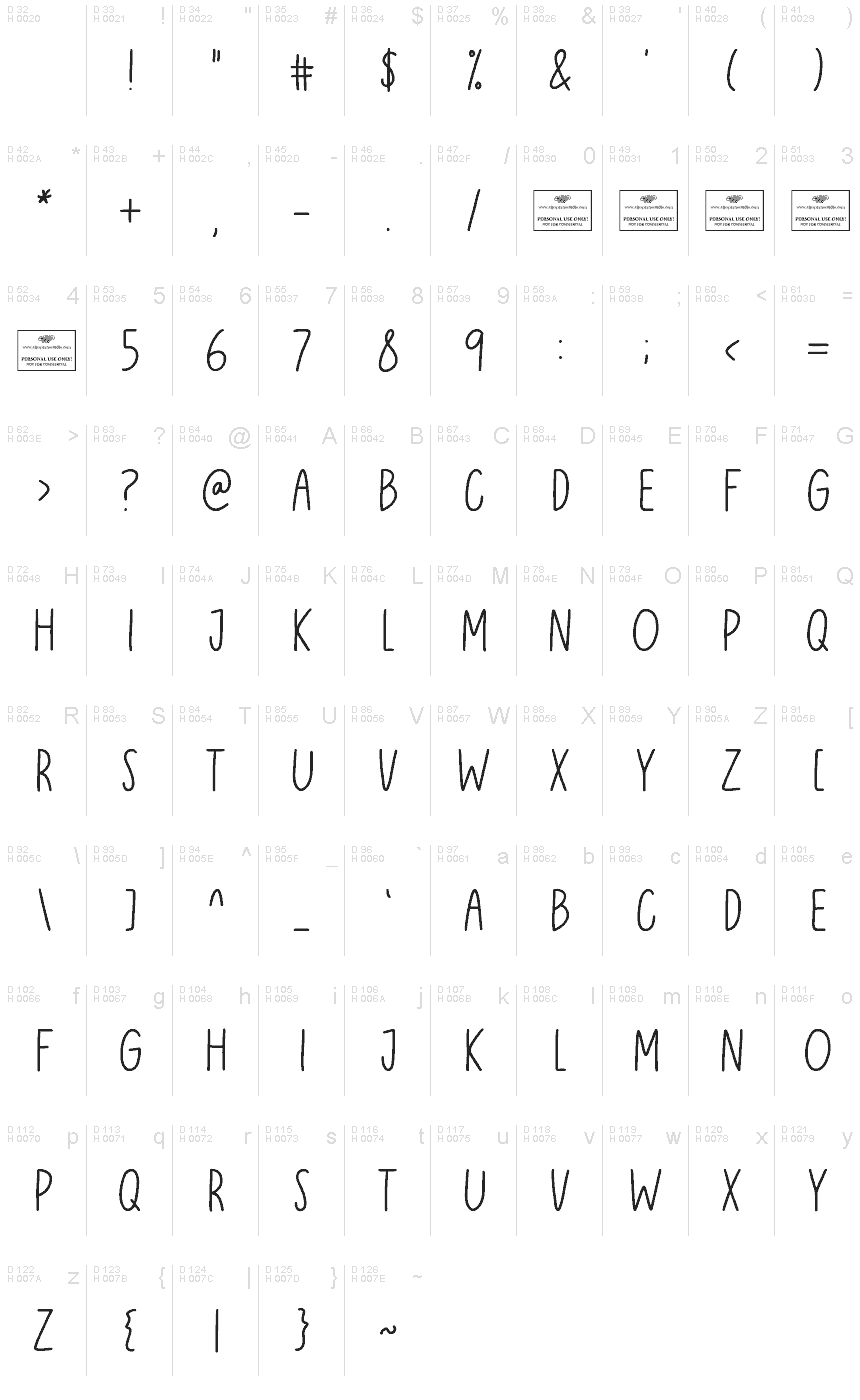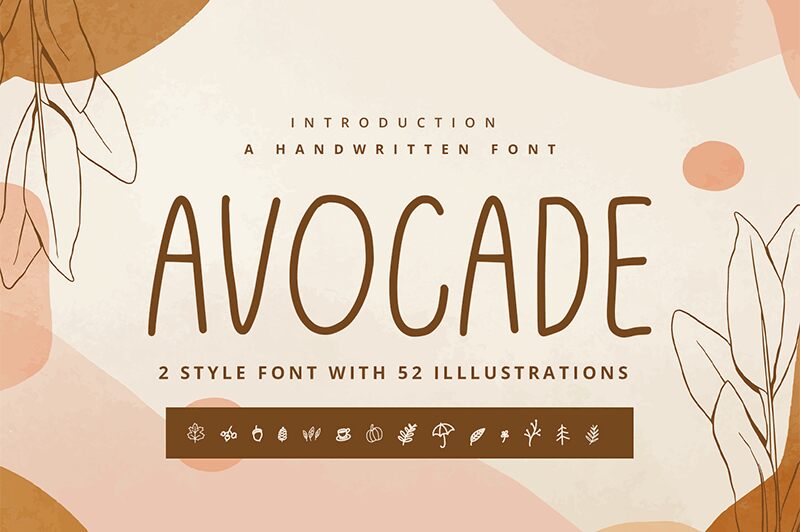
Avocade
Avocade font by Alpaprana Studio is a light handwritten typeface with a condensed structure and hand-drawn appearance. Simplicity, casual aesthetics, and an organic feel are the elements that characterize this free handwritten font that lacks ornamentation. Although minimal and simple-looking, Avocade also displays a natural appearance and friendliness that make it pleasant to use first as titles, then as the core of your textual content.
Include Avocade in your seasonal posters, magazine covers, blog designs, or decorative postcards. This font renders itself useful for designing item description tags in beauty products packaging or as handwriting for adding lovely personal signatures at the end of emails.